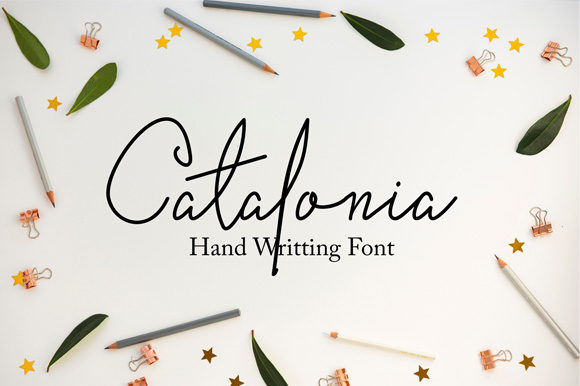
Catalonia Font: Elevate Your Design with a Touch of Modern Elegance
In the world of typography, fonts play a crucial role in conveying the tone and personality of a design project. For designers and crafters seeking a unique and modern touch, the Catalonia font stands out as an exceptional choice. This simple yet striking handwritten font is designed to add an authentic charm to any design, making it perfect for a wide range of creative endeavors.
The Essence of Catalonia Font
Catalonia is a beautifully crafted handwritten font that exudes a sense of modern elegance. Its simplicity is its strength, allowing it to seamlessly integrate into various design contexts, from digital media to print materials. The font’s clean lines and fluid strokes create a harmonious balance between classic and contemporary styles, making it an ideal choice for designers looking to add a personal touch to their work.
Key Features of Catalonia Font
- Modern Feel: Catalonia boasts a fresh and modern aesthetic that will instantly elevate your designs.
- Handwritten Style: The font’s handwritten nature adds a personal and authentic feel to any project.
- Versatility: Suitable for a wide range of design applications, including logos, branding, packaging, and more.
- Easy to Read: Despite its elegant and artistic appearance, Catalonia remains highly legible, making it perfect for both headings and body text.
Applications of Catalonia Font
The versatility of the Catalonia font makes it suitable for various design projects. Here are some of the most popular applications:
- Branding and Logos: Create a lasting impression with a unique and memorable logo that captures the essence of your brand.
- Digital Media: Enhance your website, social media posts, and email newsletters with a modern and engaging font.
- Print Materials: From business cards to brochures, add a touch of elegance to your print designs.
- Packaging: Stand out on store shelves with eye-catching packaging that reflects your brand’s personality.
Why Choose Catalonia Font?
In a sea of fonts, Catalonia stands out for its unique blend of simplicity and elegance. Here are a few reasons why designers and crafters prefer Catalonia:
- Unique Style: The font’s modern and handwritten style ensures your designs will not go unnoticed.
- Time-Saving: With its high legibility and versatility, Catalonia saves you time and effort in selecting and pairing fonts.
- Professional Look: Achieve a professional and polished look in your designs without compromising on creativity.
Tips for Using Catalonia Font Effectively
To maximize the impact of the Catalonia font in your designs, consider the following tips:
- Pair with Complementary Fonts: Combine Catalonia with serif or sans-serif fonts to create visual interest and hierarchy.
- Experiment with Colors: While the font itself is striking, experimenting with different colors can further enhance its appeal.
- Play with Sizes: Utilize varying font sizes to emphasize key messages and create a dynamic design.
Catalonia font is a powerful tool for designers and crafters aiming to infuse their projects with a modern and authentic charm. Its simplicity, elegance, and versatility make it an excellent choice for a multitude of design applications. By incorporating Catalonia into your typography arsenal, you’ll be well on your way to creating visually stunning and memorable designs that capture the essence of your creative vision.